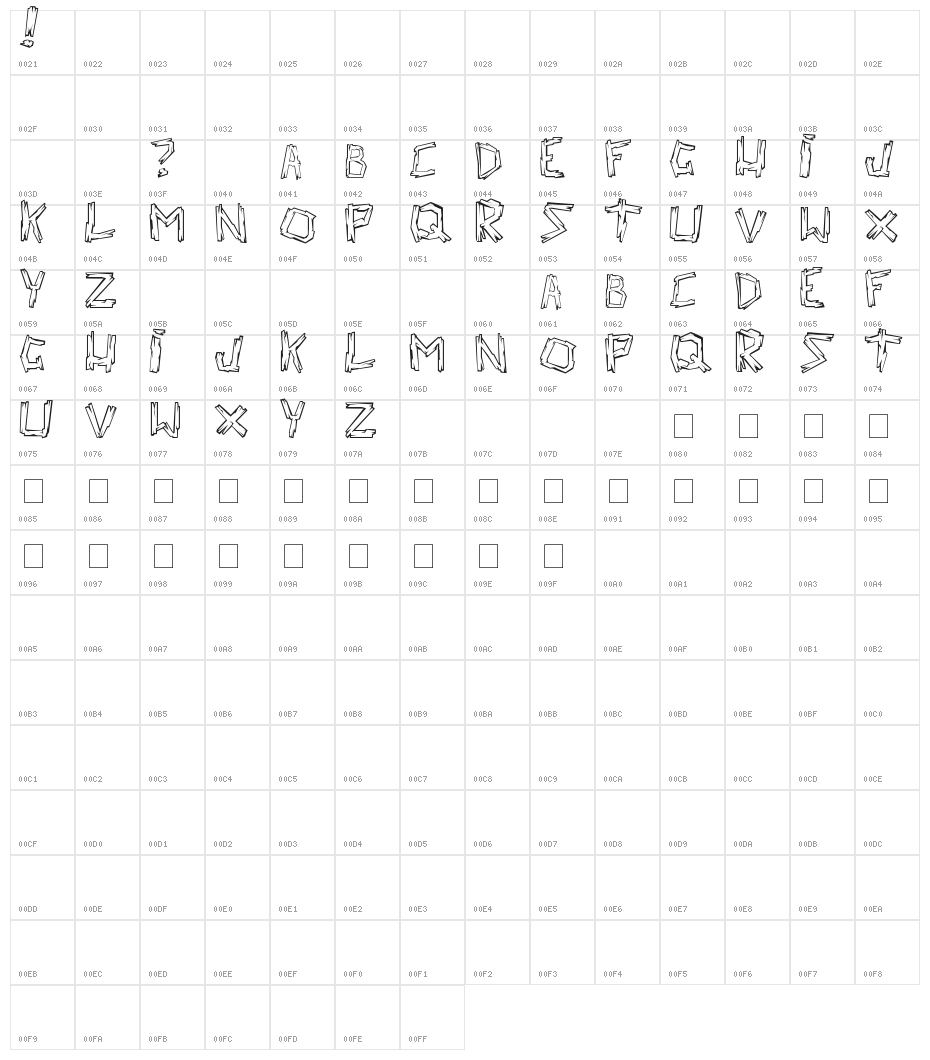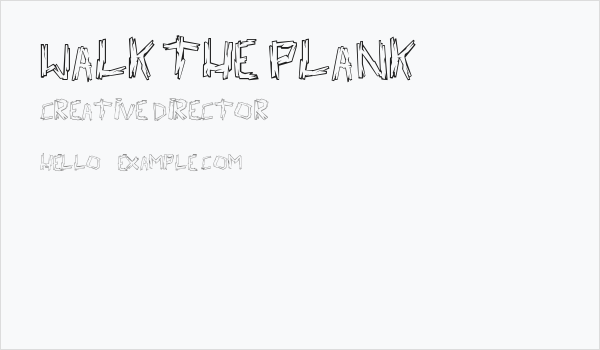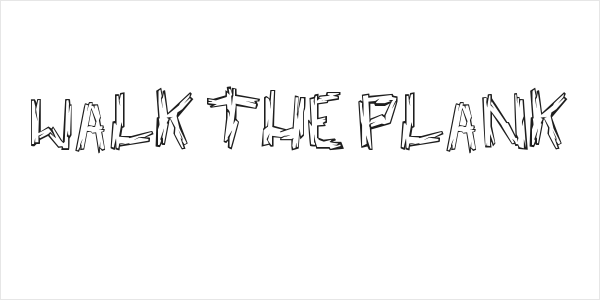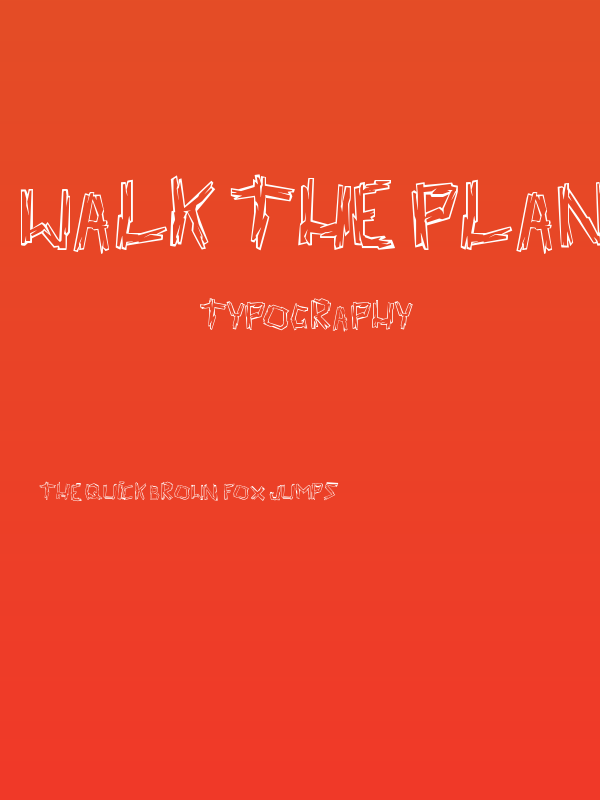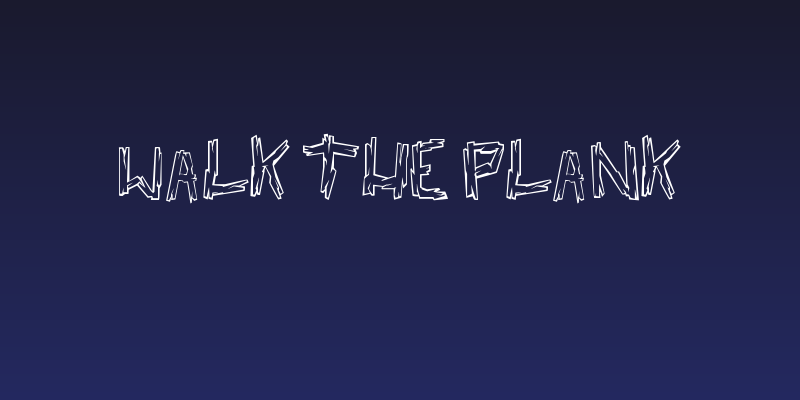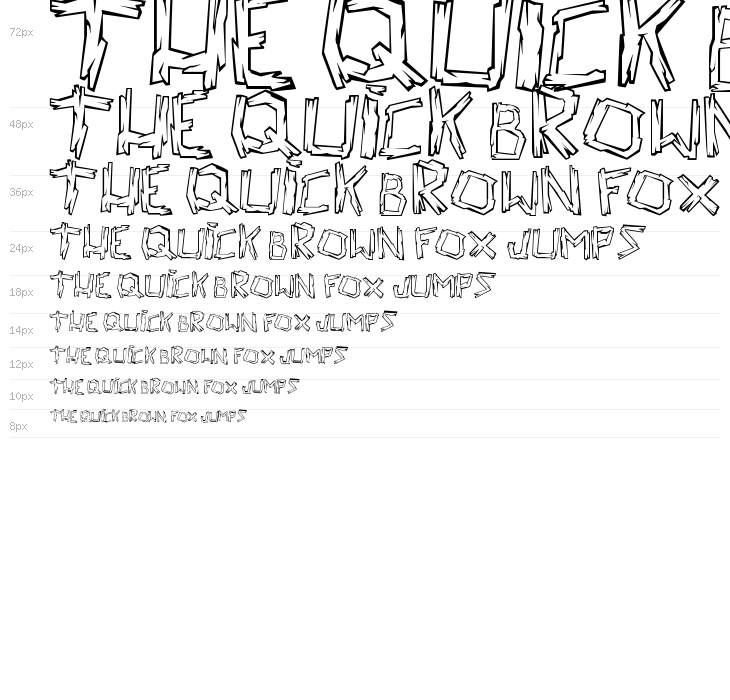
walk the plank Font
walk the plank Description
This font features a rugged, hand-drawn style with a pirate-themed aesthetic. The letters are bold and jagged, resembling wooden planks or rough-hewn logs, giving it a distinctly adventurous and playful appearance. The uppercase and lowercase letters maintain a consistent style, with sharp angles and uneven edges that add to its whimsical charm. The font's unique character is further emphasized by its irregular line thickness and sketch-like quality, making it ideal for creative and thematic projects.
| Use Case | Headlines, Logos, Thematic designs |
| Proposed Projects | Perfect for pirate-themed events, adventure games, children's books, or any project requiring a playful and bold typeface. |